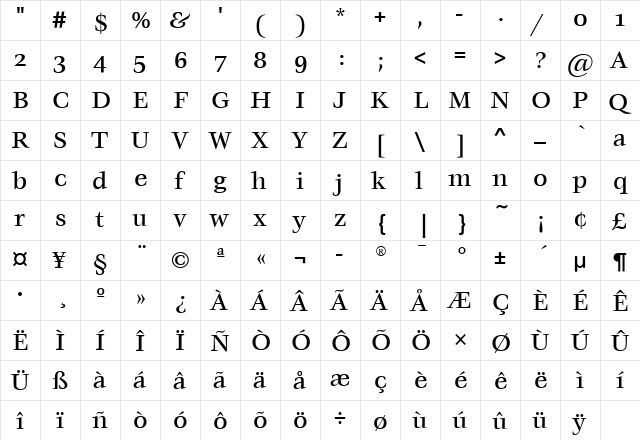
VeljovicMdOSITC Medium
Design Context for VeljovicMdOSITC Typeface
VeljovicMdOSITC is a composed and adaptable typeface that performs quietly and consistently across a wide range of design contexts.